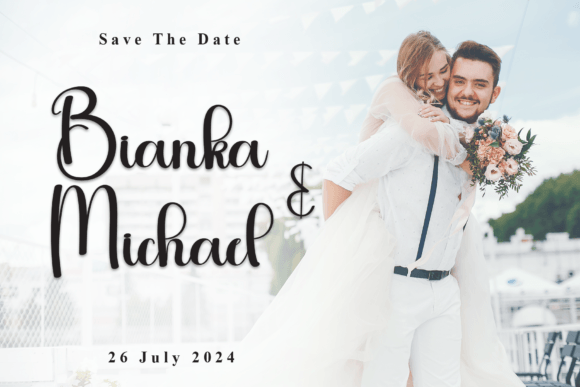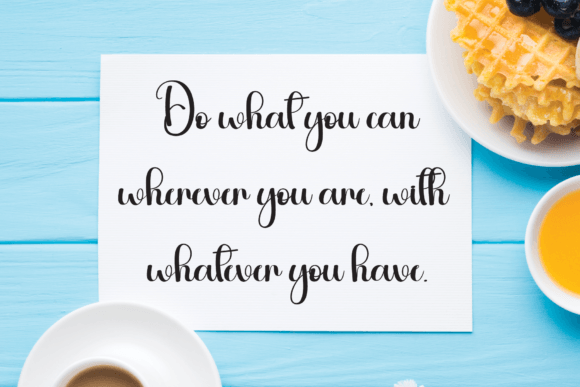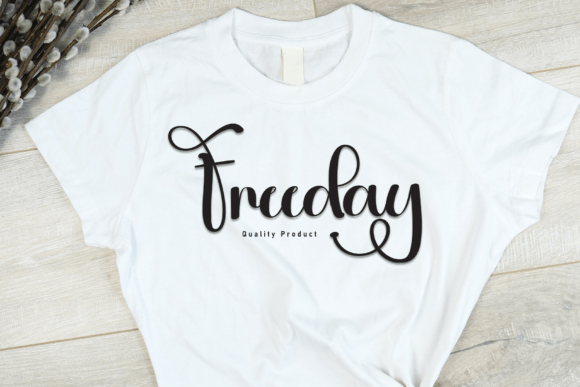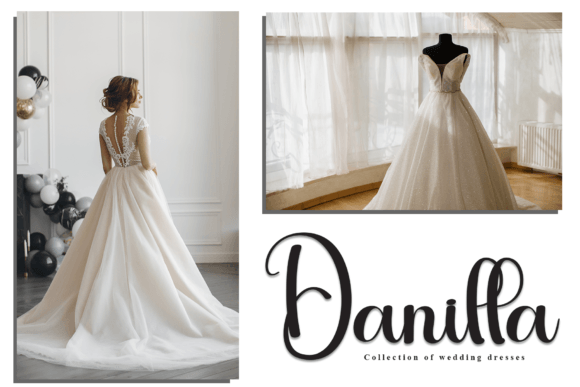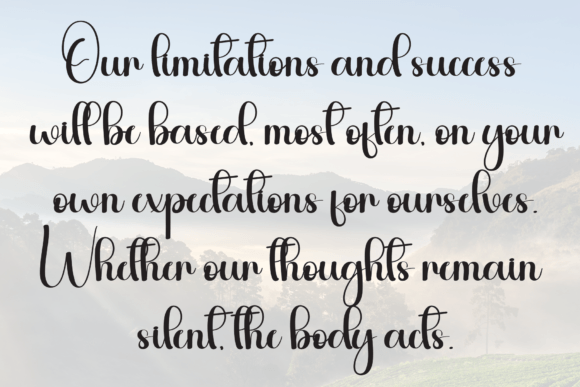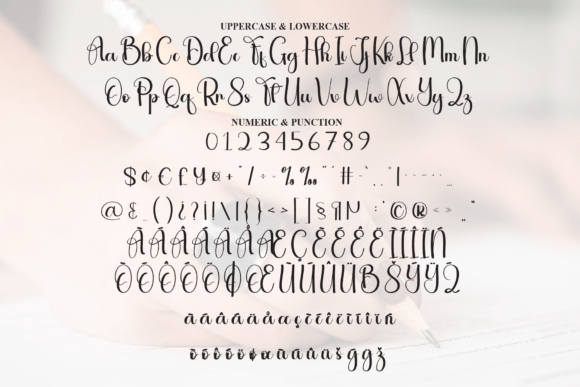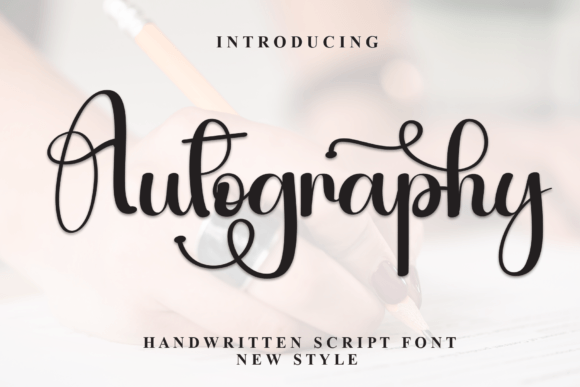
The Autography Font You’ve Been Searching For: Sweet Affection
Have you ever been in the middle of a design project, and suddenly, you just can’t seem to find the right font? I know I have. It was a beautiful wedding invitation design project, and I was determined to find the perfect handwritten font that would make it stand out. That’s when I stumbled upon Sweet Affection, a charming and approachable autography font that has since become a staple in my design toolkit.
What Makes Sweet Affection Special?
Sweet Affection is more than just a pretty font – it’s a game-changer for designers, crafters, and creative hobbyists looking to add a touch of elegance and whimsy to their projects. With its winsome and merry ensemble, this font effortlessly brings a delightful touch to your creative endeavors. Whether it’s for crafting elegant wedding invitations, sentimental cards, or injecting an inviting vibe into some other design, Sweet Affection is your go-to choice to make your projects charmingly irresistible.
My Honest Review of Sweet Affection
So, what do I love about Sweet Affection? Here are a few things that make it stand out:
- ✨ Elegant yet approachable: Sweet Affection strikes the perfect balance between sophistication and playfulness.
- ✅ Highly versatile: This font works beautifully for a wide range of design projects, from wedding invitations to social media graphics.
- 💕 Emotional connection: The handwritten nature of Sweet Affection makes it perfect for creating sentimental and emotional connections with your audience.
Now, I’m not saying it’s perfect. Here are a few small quirks to keep in mind:
- 🤔 Limited use in very formal designs: While Sweet Affection is elegant, it may not be the best fit for very formal or corporate designs.
- ⚠️ Some letters may require manual kerning: As with any handwritten font, some letters may require manual kerning to ensure optimal spacing.
- Experiment with OpenType features, such as Stylistic Alternates and Glyphs, to add more personality to your text.
- Explore OpenType features, such as Swashes and Ligatures, to add more flair to your text.
The Backstory Behind Sweet Affection
Sweet Affection was designed with love and care by a talented type designer who wanted to create a font that would evoke emotions and connections. The designer’s inspiration came from traditional handwritten scripts, combined with a modern twist to make it fresh and exciting.
| Is Sweet Affection suitable for body text? | While Sweet Affection is beautiful, it’s best suited for display text or short paragraphs. |